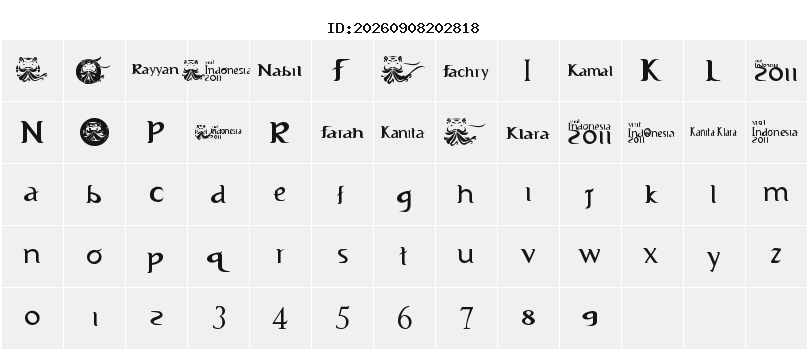
• Font Name: Visit Indonesia 2011 #2
• Full Font Name: Visit Indonesia 2011 #2
• Designer: Vidkä
About Visit Indonesia 2011 #2.ttf
Visit Indonesia 2011 #2.ttf is a modern, elegant sans-serif font designed for ultimate readability and visual harmony. Perfect for branding, headlines, web design, and print materials.